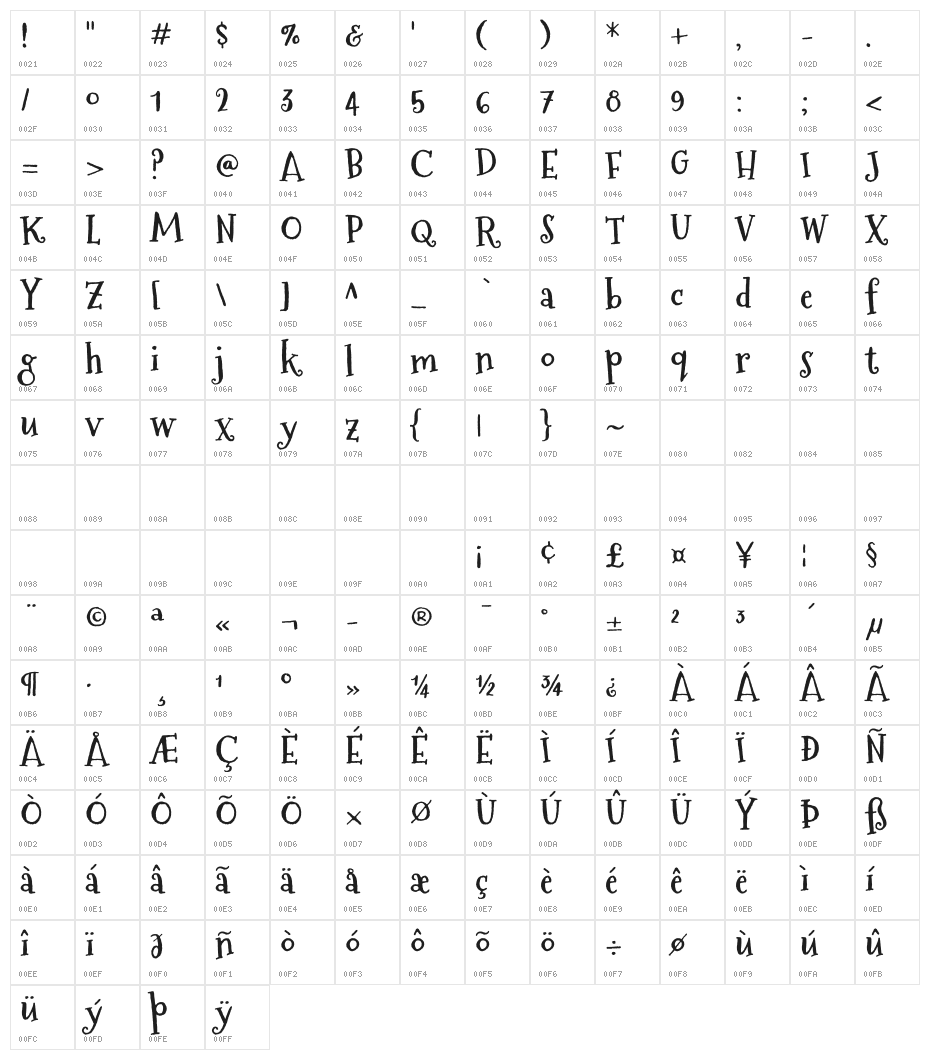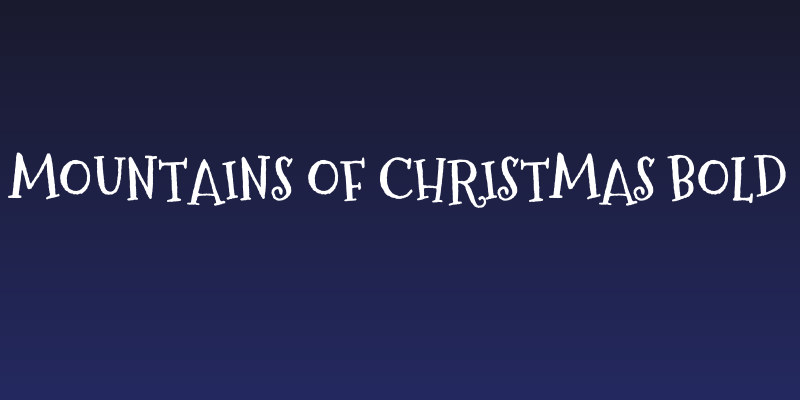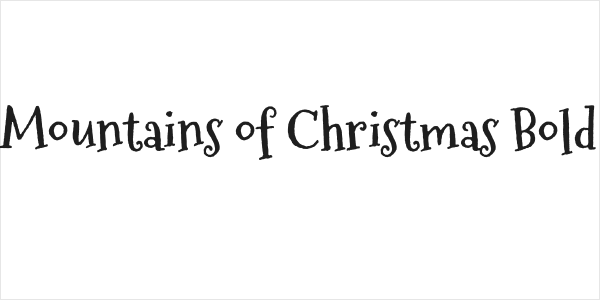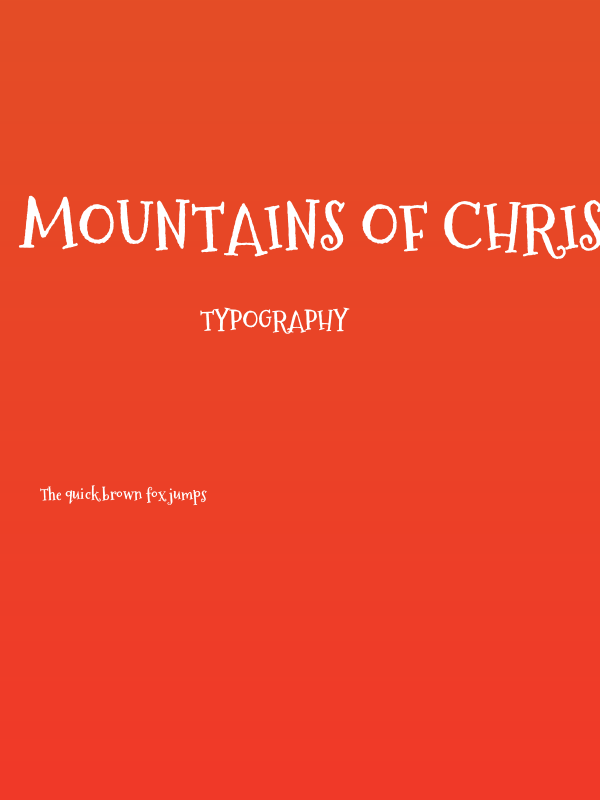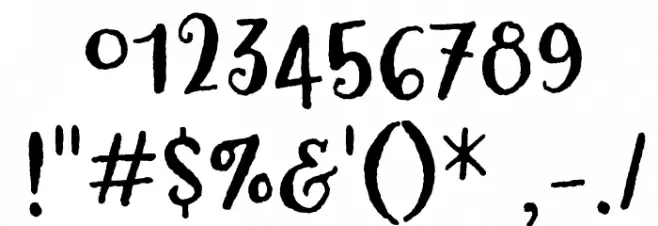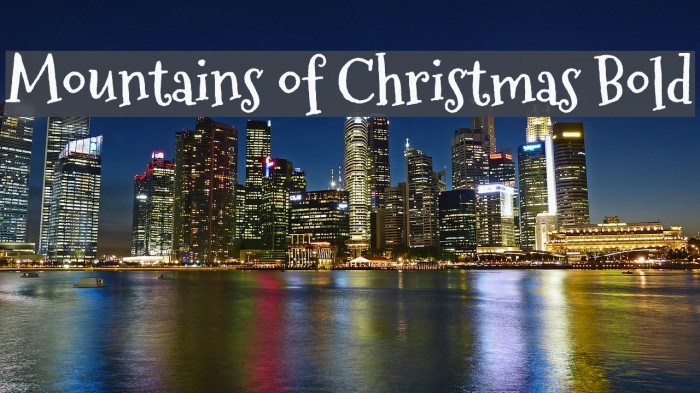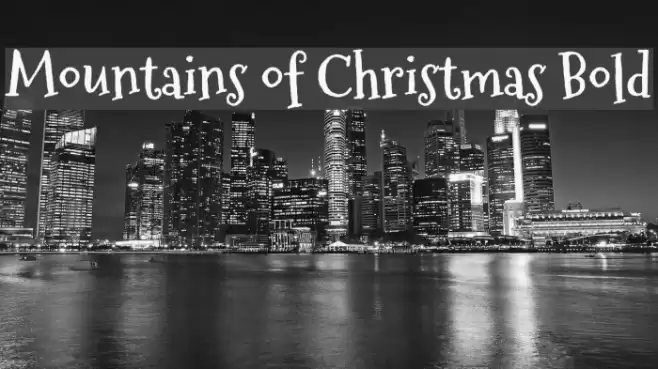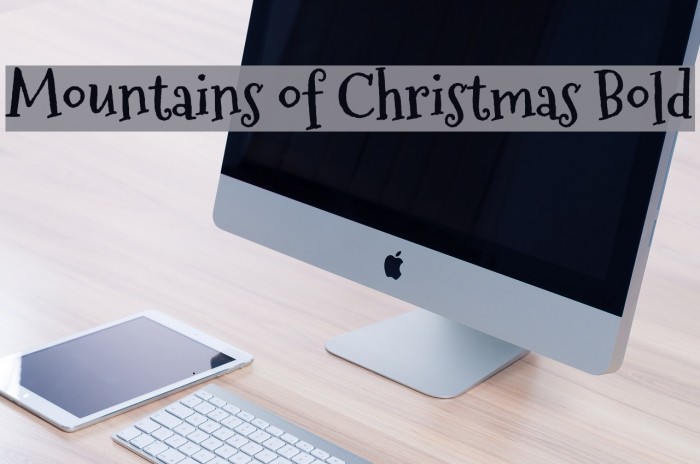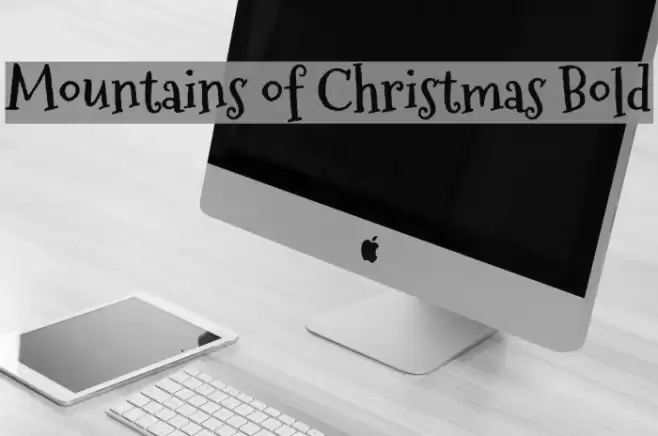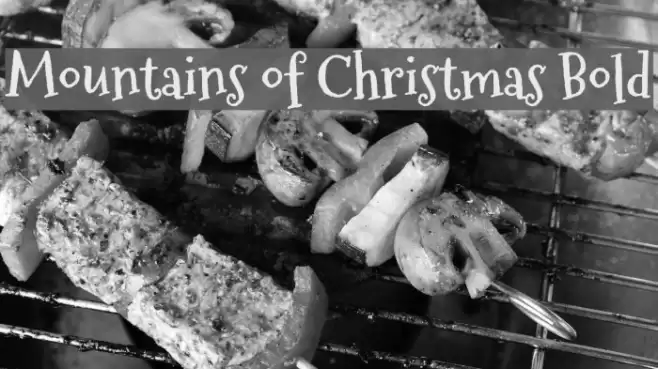
Mountains of Christmas Bold Font
Mountains of Christmas Bold Description
This font exudes a playful and whimsical charm, characterized by its irregular, hand-drawn style. The letters have a slightly uneven baseline, giving them a lively and dynamic appearance. The strokes are bold and varied, with some letters featuring unique flourishes and curls, particularly noticeable in the uppercase 'R' and 'Q'. The lowercase letters maintain a consistent style, with rounded edges and a friendly demeanor. Numbers and special characters follow the same playful aesthetic, making this font ideal for creative and informal projects.
| Proposed Projects | Ideal for children's books, holiday cards, playful branding, and creative posters. |